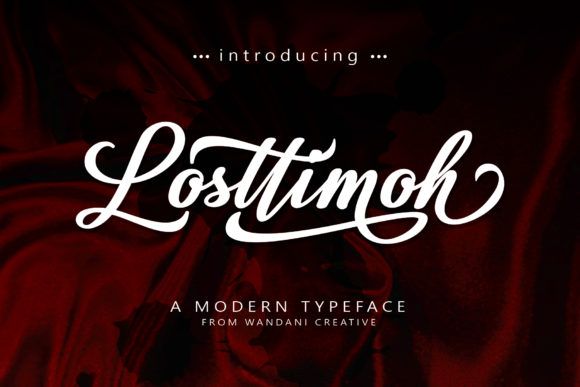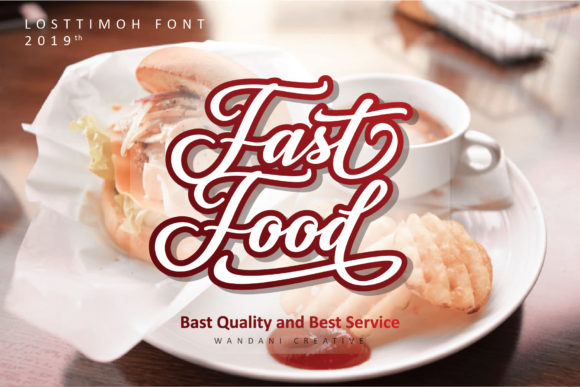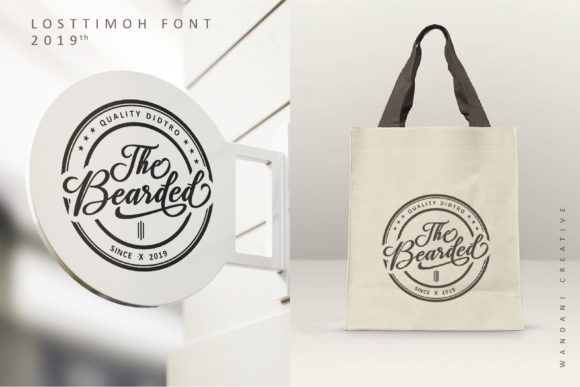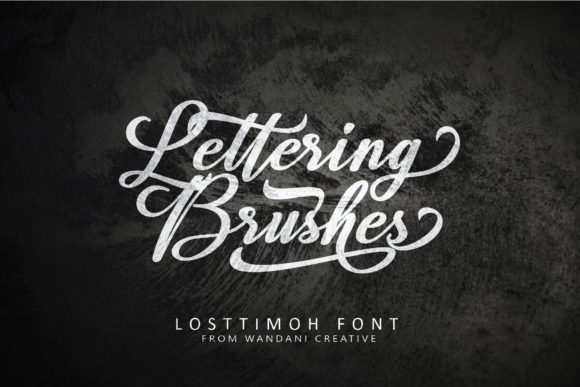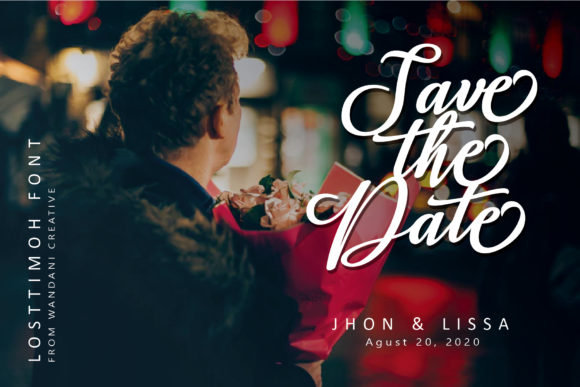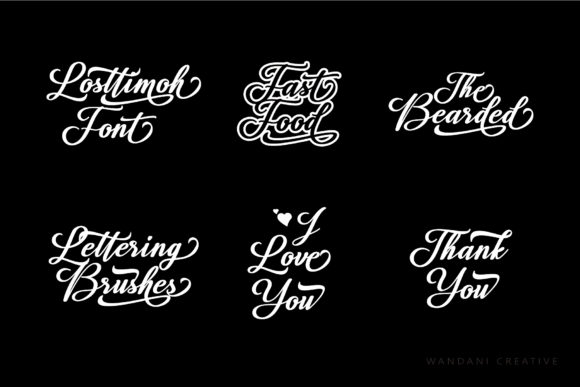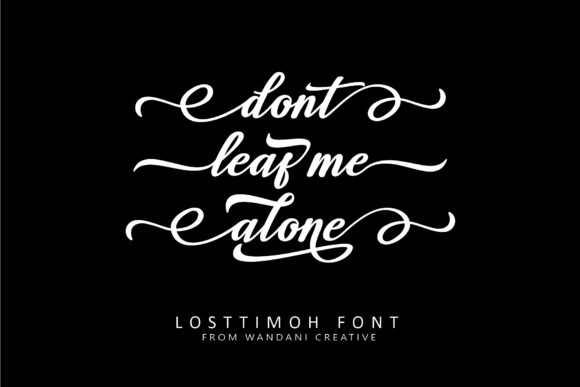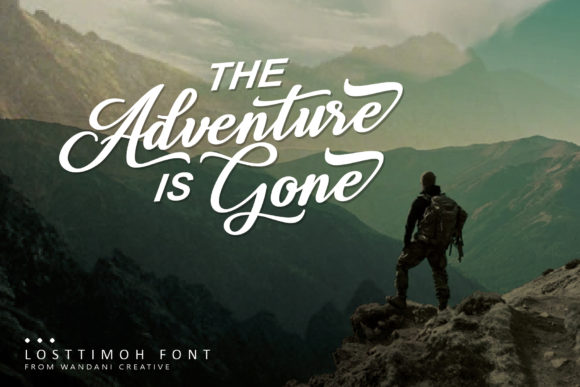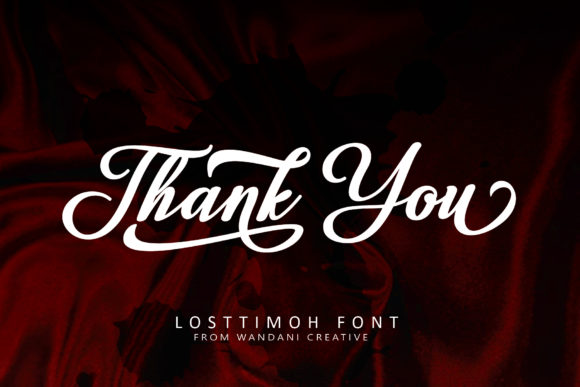
HomeScript FontsLosttimoh Font Script Fonts Losttimoh Font FacebookXPinterestWhatsApp Losttimoh Font Poster 2 Losttimoh Font Poster 3 Losttimoh Font Poster 4 Losttimoh Font Poster 5 Losttimoh Font Poster 6 Losttimoh Font Poster 7 Losttimoh Font Poster 8 Losttimoh Font Poster 9 About Losttimoh Font Losttimoh is a cool and mysterious handwritten font with a unique charm. Get inspired by its one-of-a-kind style. DOWNLOAD ON CREATIVE FABRICAThis font is sold and delivered by Creative Fabrica. Font Canyon may earn a commission if you buy through this link. People also explored Rethed Font Pauletta Font Bunton Island Font Origins Font Arctics Font Snowdem Christmas Font Sweet Heart Font Sweet Dream Font Delayed Love Font 297 0 TagsLosttimoh Font Previous articleVetto Rosella FontNext articleBeyond Magical Font LEAVE A REPLY Cancel reply Comment: Please enter your comment! Name:* Please enter your name here Email:* You have entered an incorrect email address! Please enter your email address here Website: Save my name, email, and website in this browser for the next time I comment. Personal Use Free Imelda Personal Use Free Read more about this font Bosque Font Personal Use Free Read more about this font Little Pixel Personal Use Free Read more about this font Nesto Copper 42 Font Personal Use Free Read more about this font BLOG Top 10 Handwritten Fonts That Elevate Your Designs Top 10 Handwritten Fonts That Will Elevate Your Designs Handwritten fonts bring a warm, personal touch to every creative project. Whether you're designing logos, invitations,... The 10 Best Handwriting Fonts to Add Personality to Your Designs Fonts That Capture the Spirit of New York City Exploring Font Trends